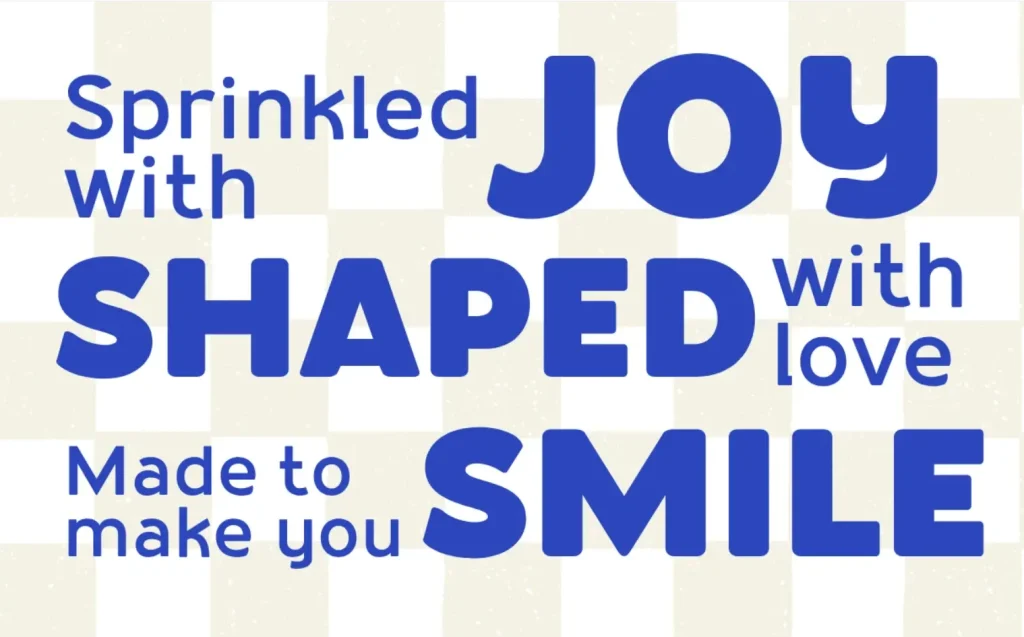
Scampy is a free sans-serif font that injects personality into typography. This typeface uses bold shapes and energetic details to make text command attention. It is a great choice for projects requiring a blend of retro appeal and modern confidence.
Features
- Bold, statement-making letterforms
- Playful and rhythmic design details